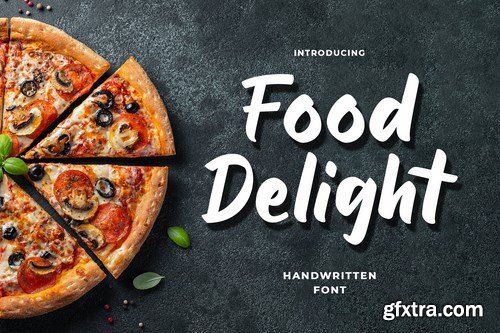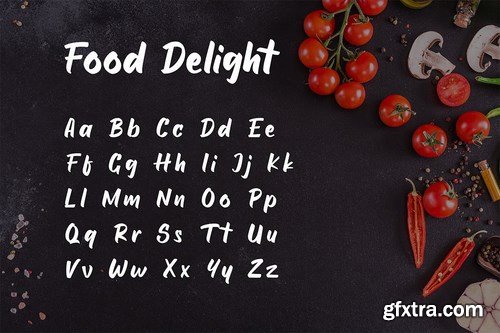
Food Delight is a handwritten font in a modern brush style. Food Delight Font is a font made in natural handwriting style, with a bold style. This script font is perfectly suited for any culinary projects like street food, food truck, restaurant, cafe and any branding material like logo, menu, packaging, quotes, flyer, poster, banners,